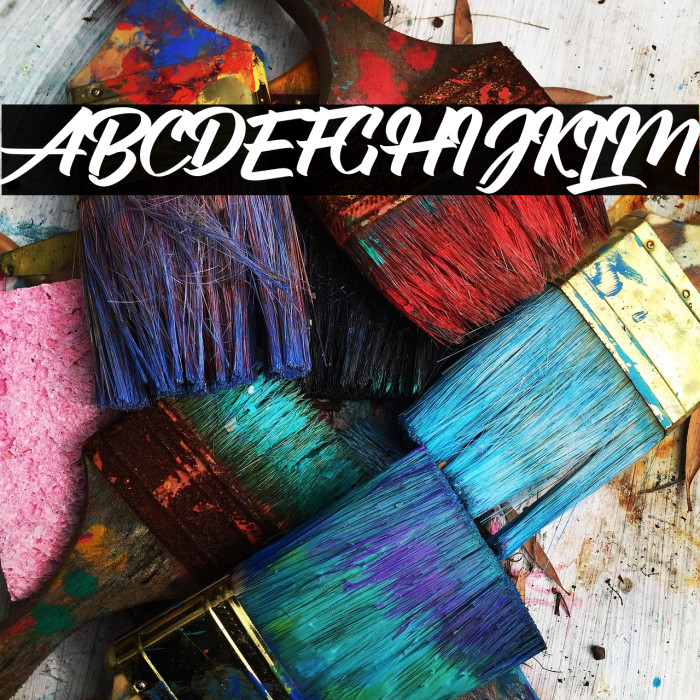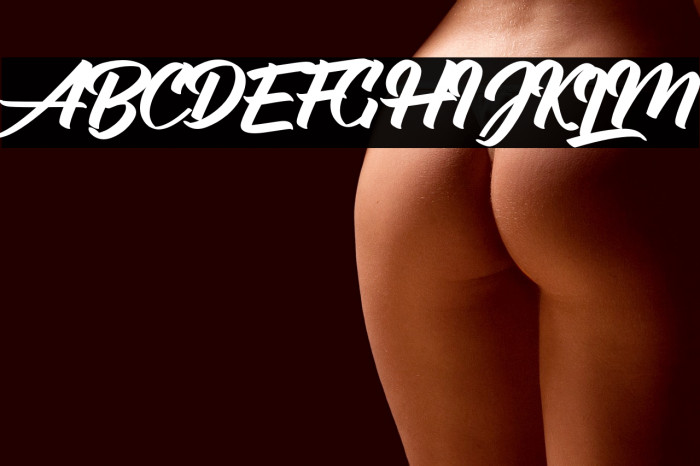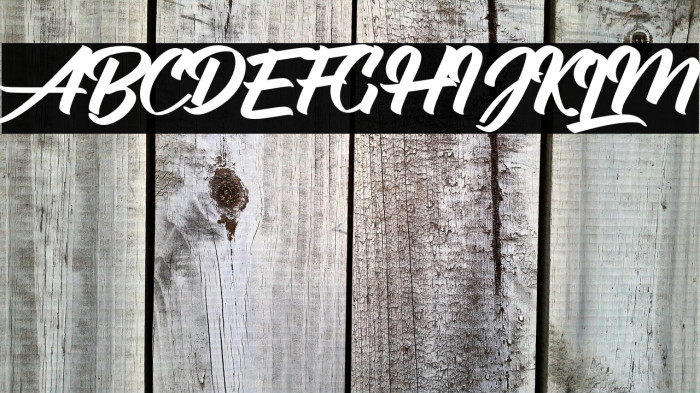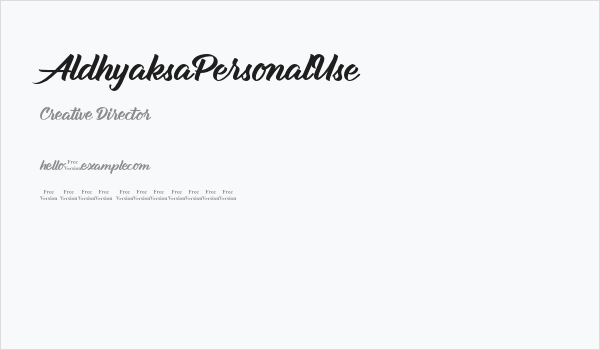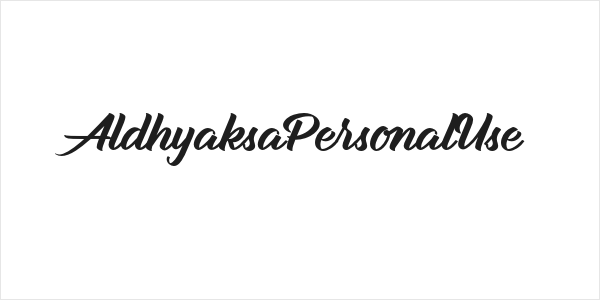
AldhyaksaPersonalUse Font
AldhyaksaPersonalUse Description
This font features a bold and dynamic script style with a strong presence. The letters are connected in a fluid manner, giving it a handwritten appearance. The uppercase letters are elegantly crafted with sweeping curves and flourishes, while the lowercase letters maintain a consistent flow. The overall design is both stylish and legible, making it suitable for a variety of creative projects. The font's bold weight and high contrast between thick and thin strokes add to its visual impact. It is perfect for designs that require a touch of elegance and personality.
A bold, dynamic script font with a handwritten appearance from Uncategorized fonts.
- Font: AldhyaksaPersonalUse
- Proposed Projects: Ideal for branding, invitations, greeting cards, and logo design.
- Use Case: Logos, Headlines, Invitations